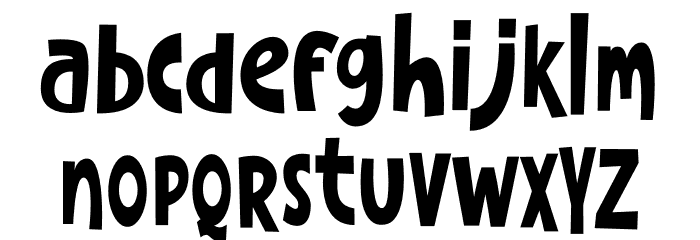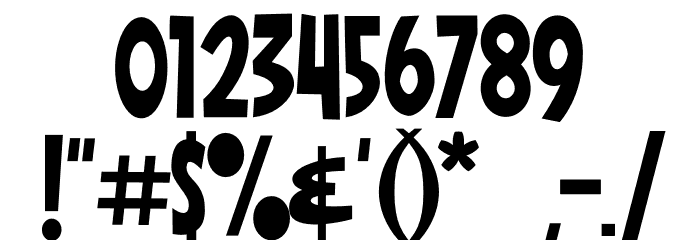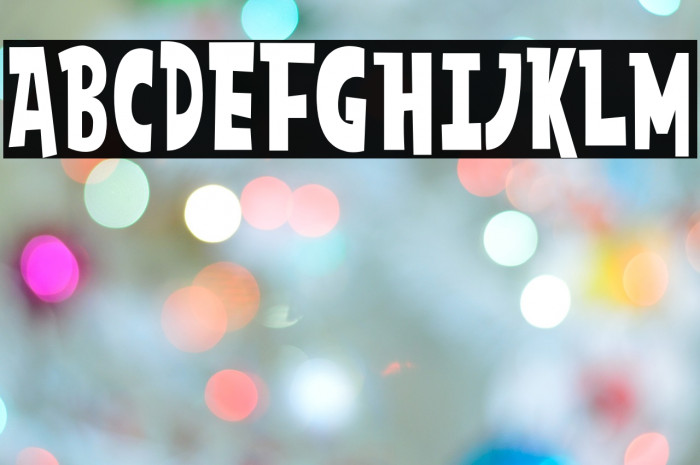
Rocket Mission Font
This font features a bold and playful design with exaggerated curves and a slightly irregular baseline, giving it a dynamic and energetic appearance. The uppercase letters are particularly striking, with a strong presence and unique character shapes that stand out. The lowercase letters maintain the playful theme, with rounded edges and a whimsical touch. Numbers are bold and consistent with the overall style, ensuring readability while maintaining the font's distinctive flair. Special characters are creatively designed, adding to the font's versatility and charm.
A bold and playful font with exaggerated curves and a whimsical style.
- Font: Rocket Mission
- Proposed Projects: Ideal for children's books, playful branding, posters, and creative projects that require a fun and energetic typeface.
- Overall Style: Playful, Energetic, Whimsical
- Use Case: Headlines, Posters, Branding